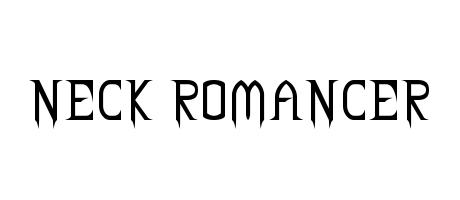
Neck Romancer
Neck Romancer is a striking display typeface, its serifs sharply pointed like gothic architecture. The letterforms are tall and narrow, giving it a dramatic, almost sinister feel. Its strong verticality suggests power and elegance, while the pointed serifs add a touch of the macabre. The overall effect is both refined and edgy.